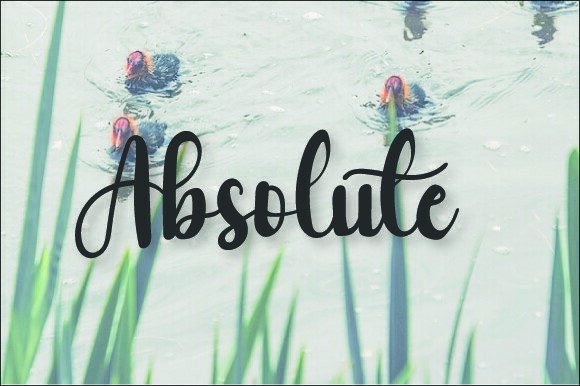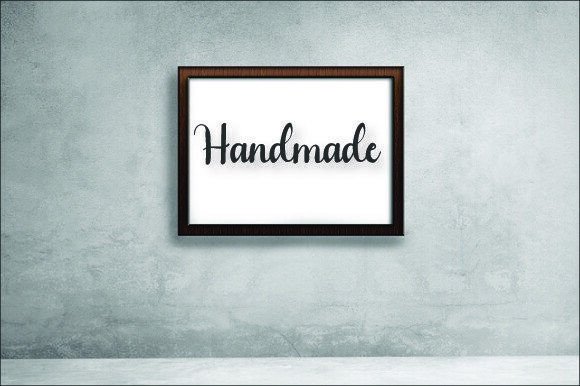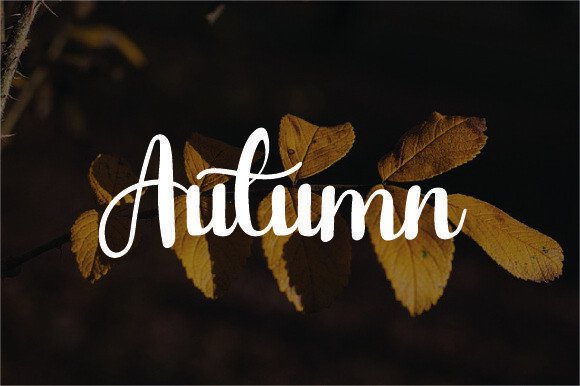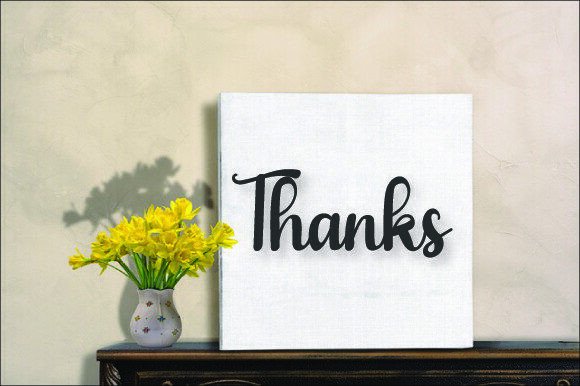
Baby Font: The Sweet and Elegant Choice for Your Design Projects
Are you looking for a font that can add a touch of sweetness and romance to your design projects? Look no further than Baby Font, a beautiful and elegant handwritten font that is perfect for a variety of design ideas. In this article, we’ll take a closer look at the features and benefits of Baby Font, and explore how you can use it to elevate your designs.
What is Baby Font?
Baby Font is a sweet and cursive handwritten font that is designed to bring a touch of joy and romance to your designs. With its gentle and flowing curves, this font is perfect for creating elegant and sophisticated designs that are sure to impress. Whether you’re working on a branding project, a wedding invitation, or a marketing promotion, Baby Font is the perfect choice.
Key Features of Baby Font
- Sweet and Cursive Design: Baby Font features a beautiful cursive design that is both sweet and elegant.
- Handwritten Style: This font has a handwritten style that gives it a personal and unique touch.
- Versatile: Baby Font can be used on a variety of design projects, from branding and logos to wedding invitations and marketing promotions.
- Elegant and Sophisticated: This font is perfect for creating elegant and sophisticated designs that are sure to impress.
How to Use Baby Font in Your Designs
Baby Font is a versatile font that can be used in a variety of design projects. Here are a few ideas to get you started:
- Branding and Logos: Use Baby Font to create a beautiful and elegant logo for your brand.
- Wedding Invitations: This font is perfect for creating romantic and elegant wedding invitations.
- Greeting Cards: Use Baby Font to create beautiful and personalized greeting cards for special occasions.
- Fashion and Lookbooks: This font is perfect for creating stylish and elegant fashion designs and lookbooks.
- Marketing Promotions: Use Baby Font to create eye-catching and elegant marketing promotions.
Benefits of Using Baby Font
There are many benefits to using Baby Font in your designs. Here are a few:
- Elegant and Sophisticated Designs: Baby Font can help you create elegant and sophisticated designs that are sure to impress.
- Unique and Personal Touch: This font has a unique and personal touch that can help your designs stand out.
- Versatile: Baby Font can be used on a variety of design projects, making it a great addition to your font library.
- Easy to Read: This font is easy to read, making it perfect for body text and other applications where readability is important.
Tips for Using Baby Font Effectively
Here are a few tips for using Baby Font effectively in your designs:
- Use it Sparingly: Baby Font is a elegant and sophisticated font, so use it sparingly to avoid overwhelming your design.
- Pair it with Other Fonts: This font pairs well with other fonts, so experiment with different combinations to find the perfect look for your design.
- Adjust the Size and Color: Adjust the size and color of Baby Font to create visual interest and hierarchy in your design.
Baby Font is a beautiful and elegant handwritten font that is perfect for a variety of design projects. With its sweet and cursive design, this font can add a touch of joy and romance to your designs. Whether you’re working on a branding project, a wedding invitation, or a marketing promotion, Baby Font is the perfect choice. So why not give it a try and see how it can elevate your designs?